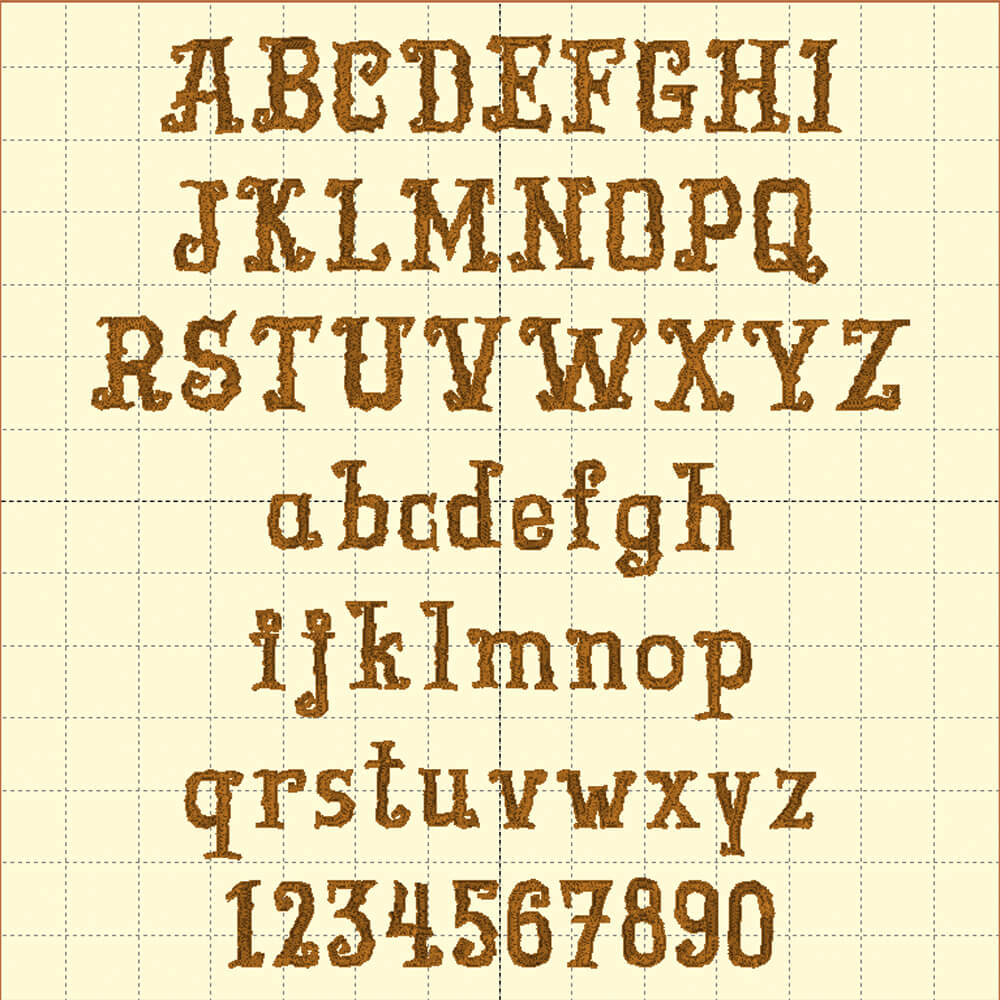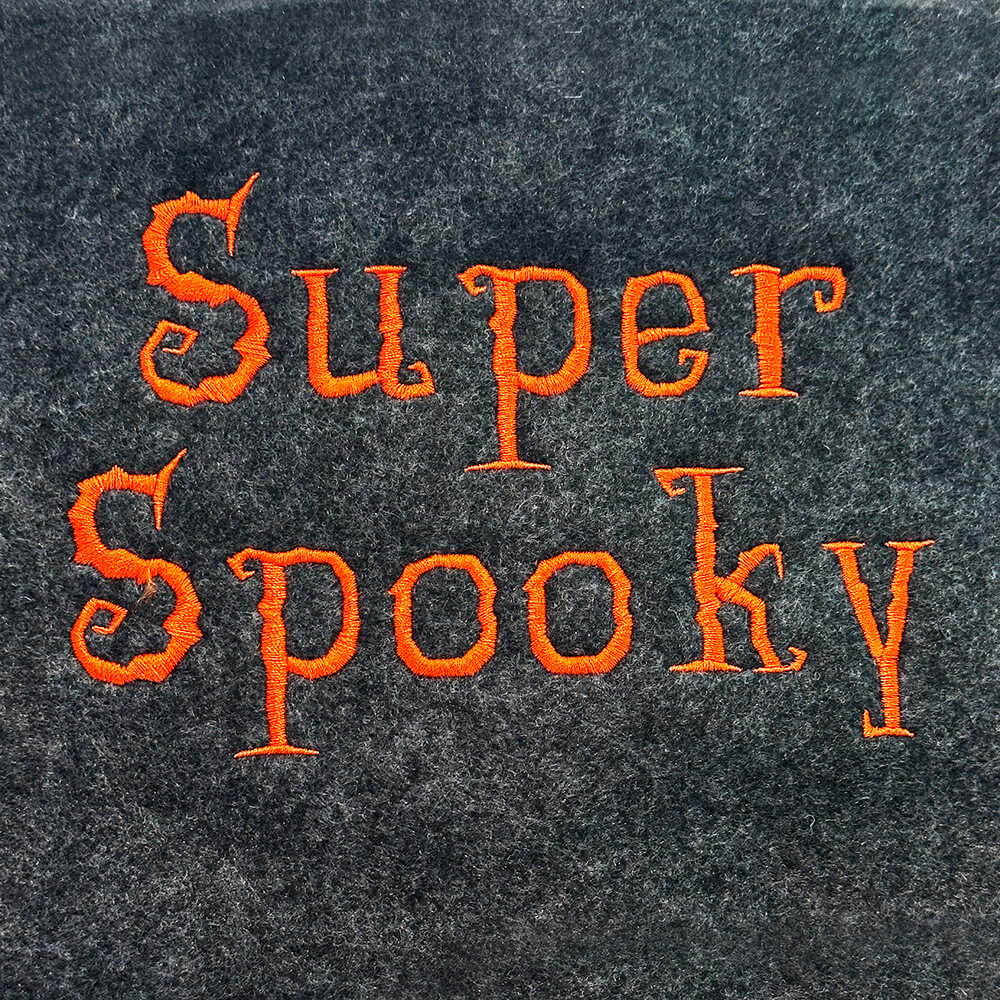
Super Spooky Embroidery Font
The Super Spooky embroidery font is made up of chilling, jagged letters that drip with eerie charm, perfect for haunted houses and Halloween nights.
Super Spooky Embroidery Font
All upper case and lower case letters and numbers